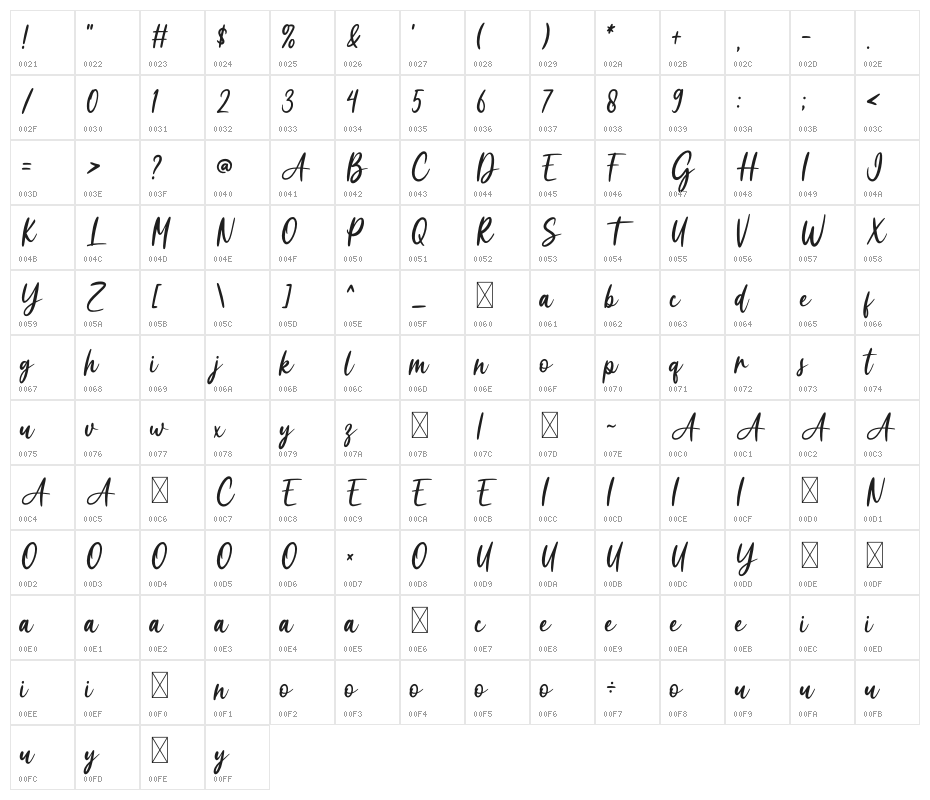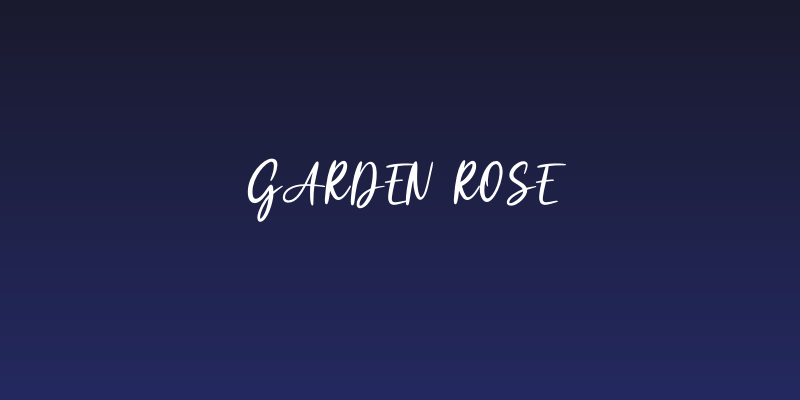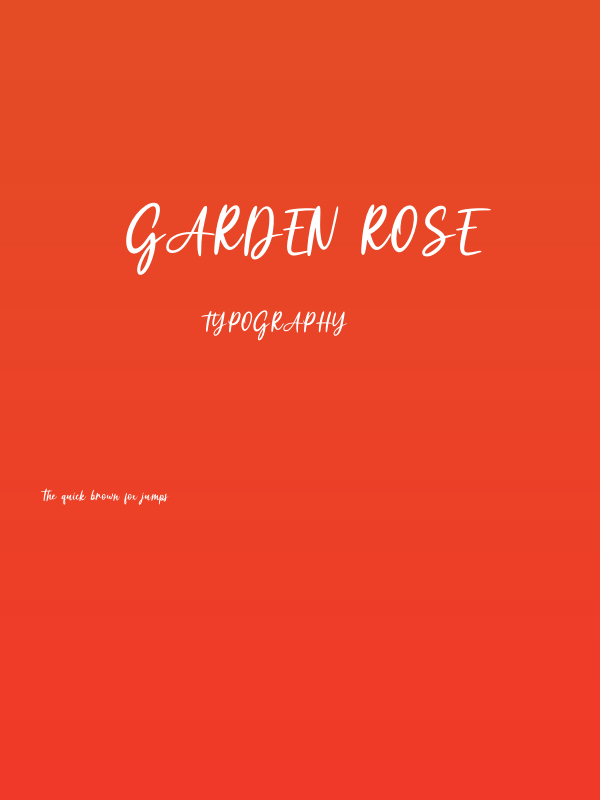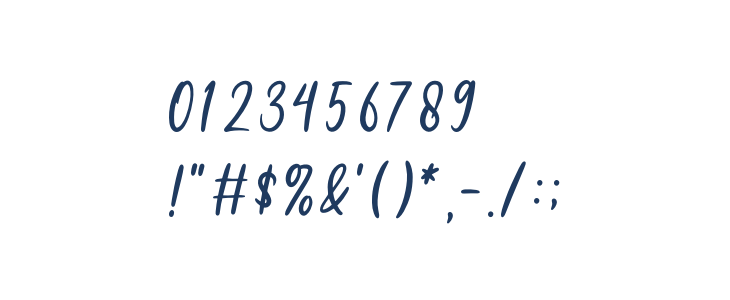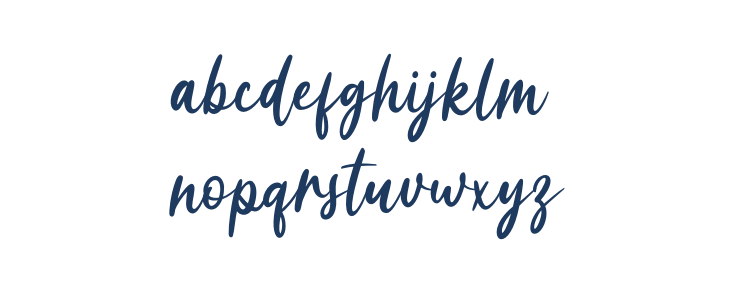
Garden Rose Font
Garden Rose Description
This font features a flowing, cursive style that exudes elegance and charm. The letters are interconnected with smooth, sweeping strokes that give it a handwritten feel. The uppercase letters are bold and prominent, while the lowercase letters maintain a consistent flow, enhancing readability. The numerals and special characters are crafted with the same attention to detail, ensuring a cohesive look across all text. The overall design is both sophisticated and approachable, making it suitable for a variety of creative projects.
| Overall Style | Elegant, Handwritten |
| Proposed Projects | Ideal for wedding invitations, greeting cards, branding, and social media graphics. |